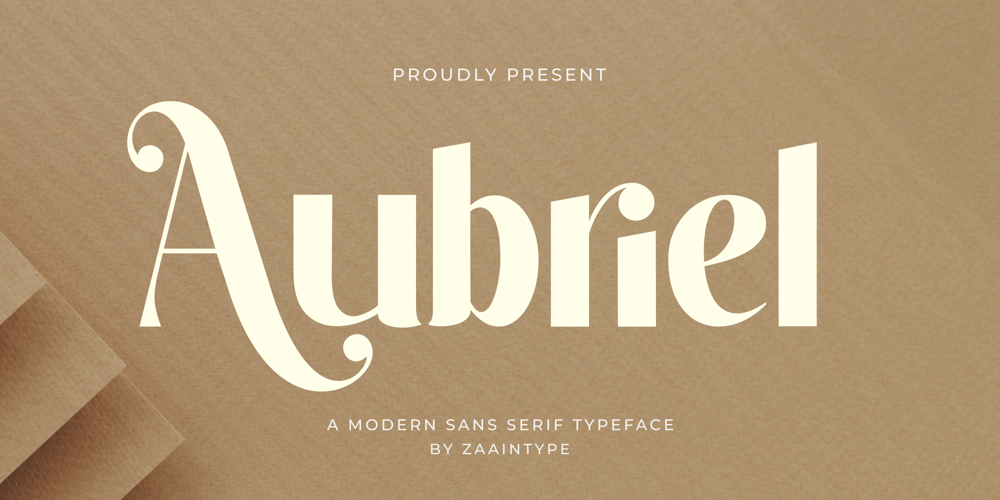
Aubriel Font Family was designed by Ju Naen and published by Zaain Type. Aubriel contains 1 styles and family package options. Introducing Aubriel, designed to bring an elegant touch and clarity to any design project. Its clean lines and balanced proportions make it a versatile choice for various applications, from branding and editorial to digital interfaces and signage. Aubriel’s minimalist aesthetic offers elegance and readability, making it perfect for designers seeking a professional and contemporary look. Whether used in headings or body text, Aubriel ensures your message is conveyed with effortless style.